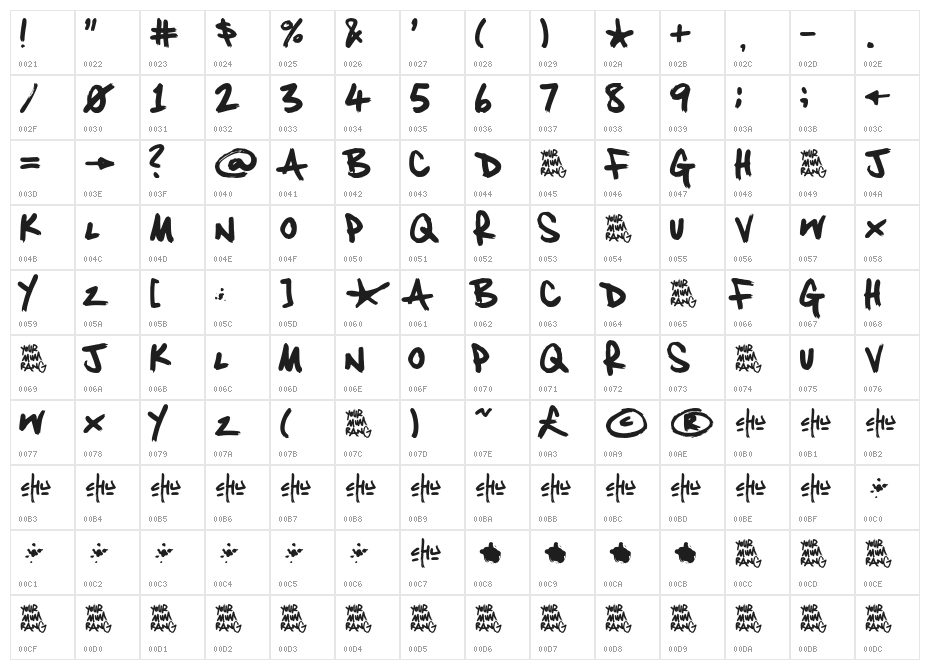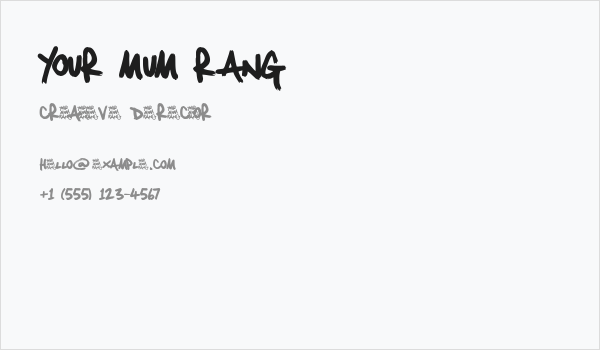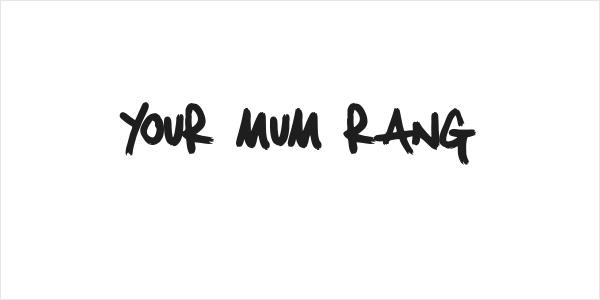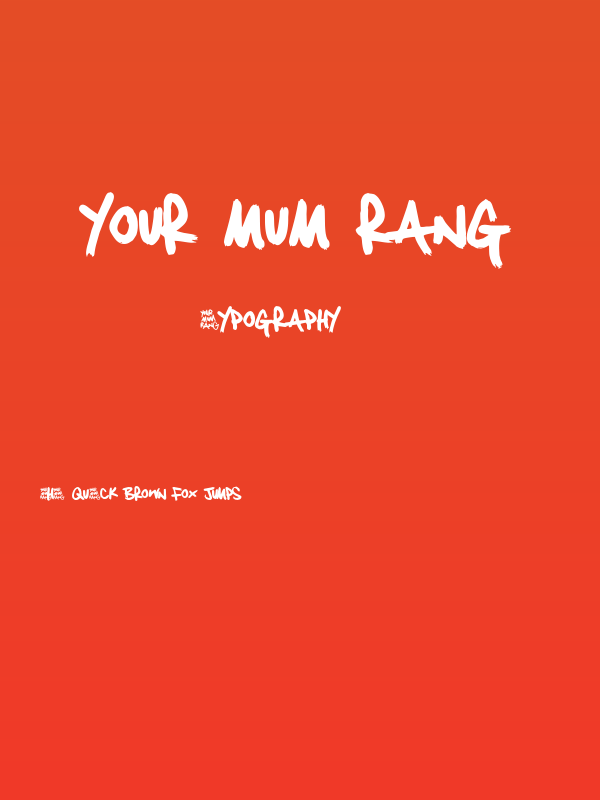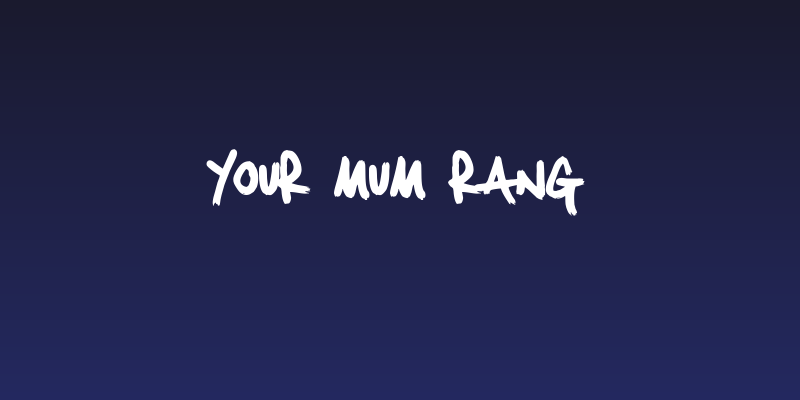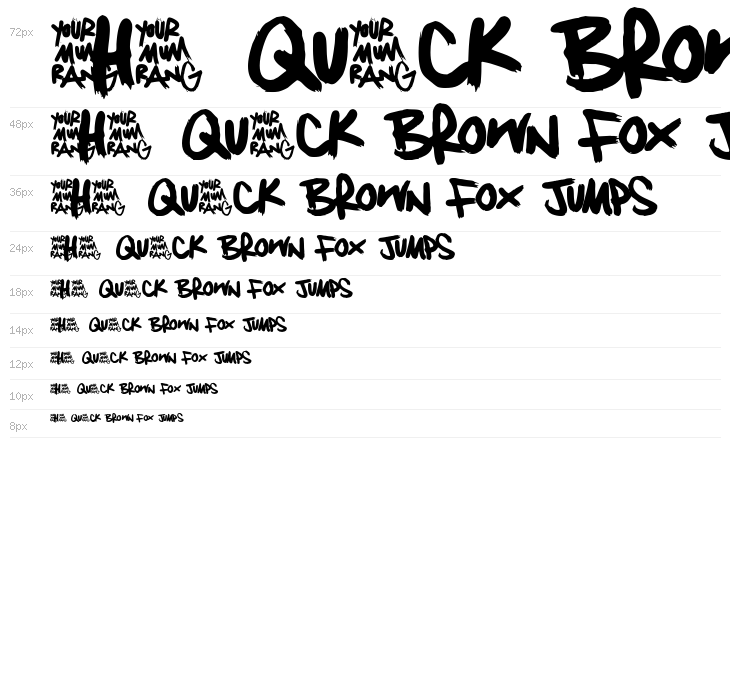
Your Mum Rang Font
Your Mum Rang Description
This font exudes a bold and energetic style, reminiscent of graffiti art with its thick, expressive strokes and dynamic angles. The characters are crafted with a sense of movement, giving each letter a unique personality. The uppercase and lowercase letters maintain a consistent style, while the numbers and special characters complement the overall aesthetic. The font's design is perfect for projects that require a strong, impactful visual presence, such as posters, album covers, or urban-themed branding. Its playful yet assertive nature makes it suitable for creative and unconventional applications.
| Overall Style | Modern, Urban |
| Proposed Projects | Ideal for posters, album covers, urban branding, and creative designs. |